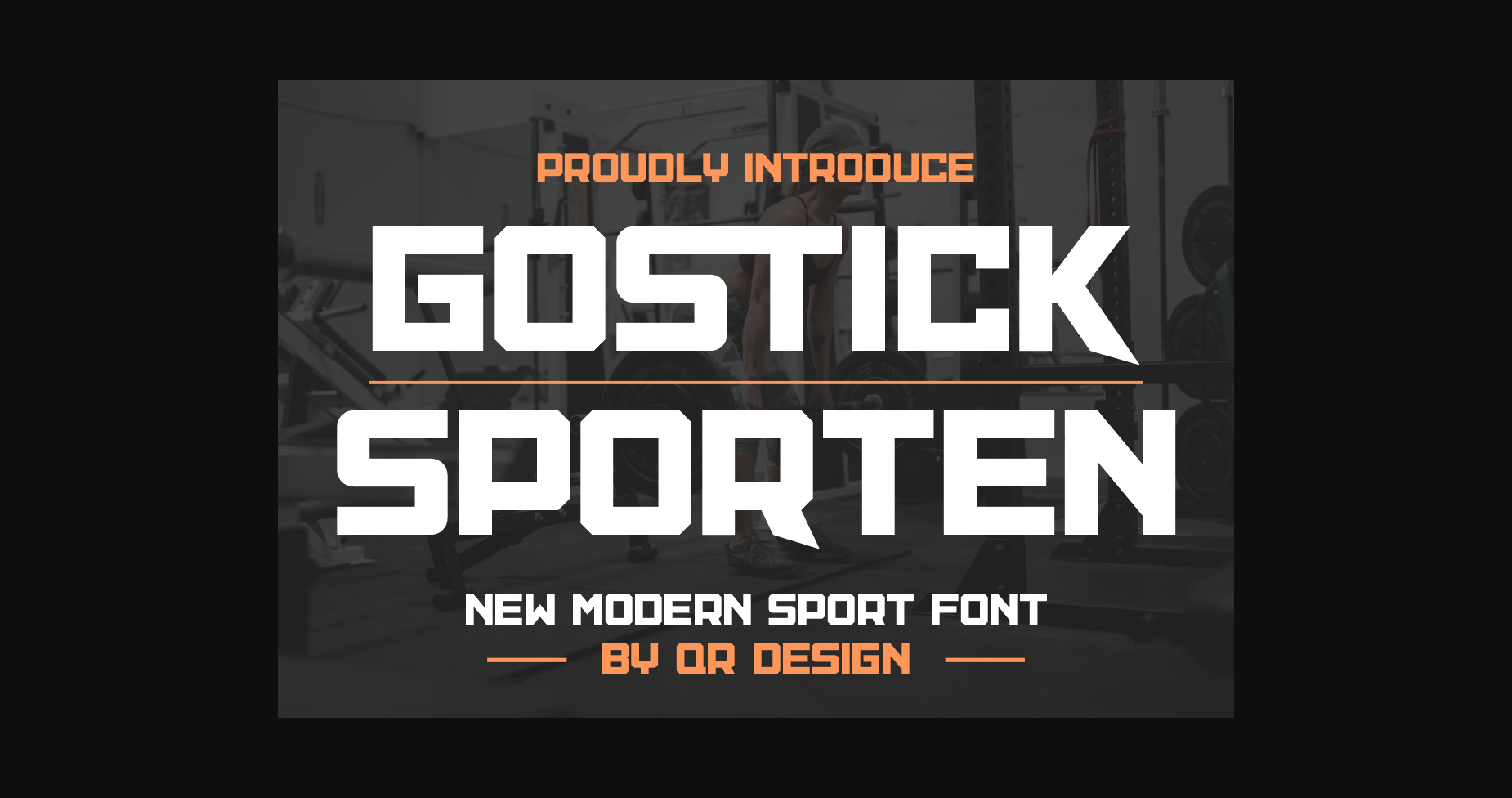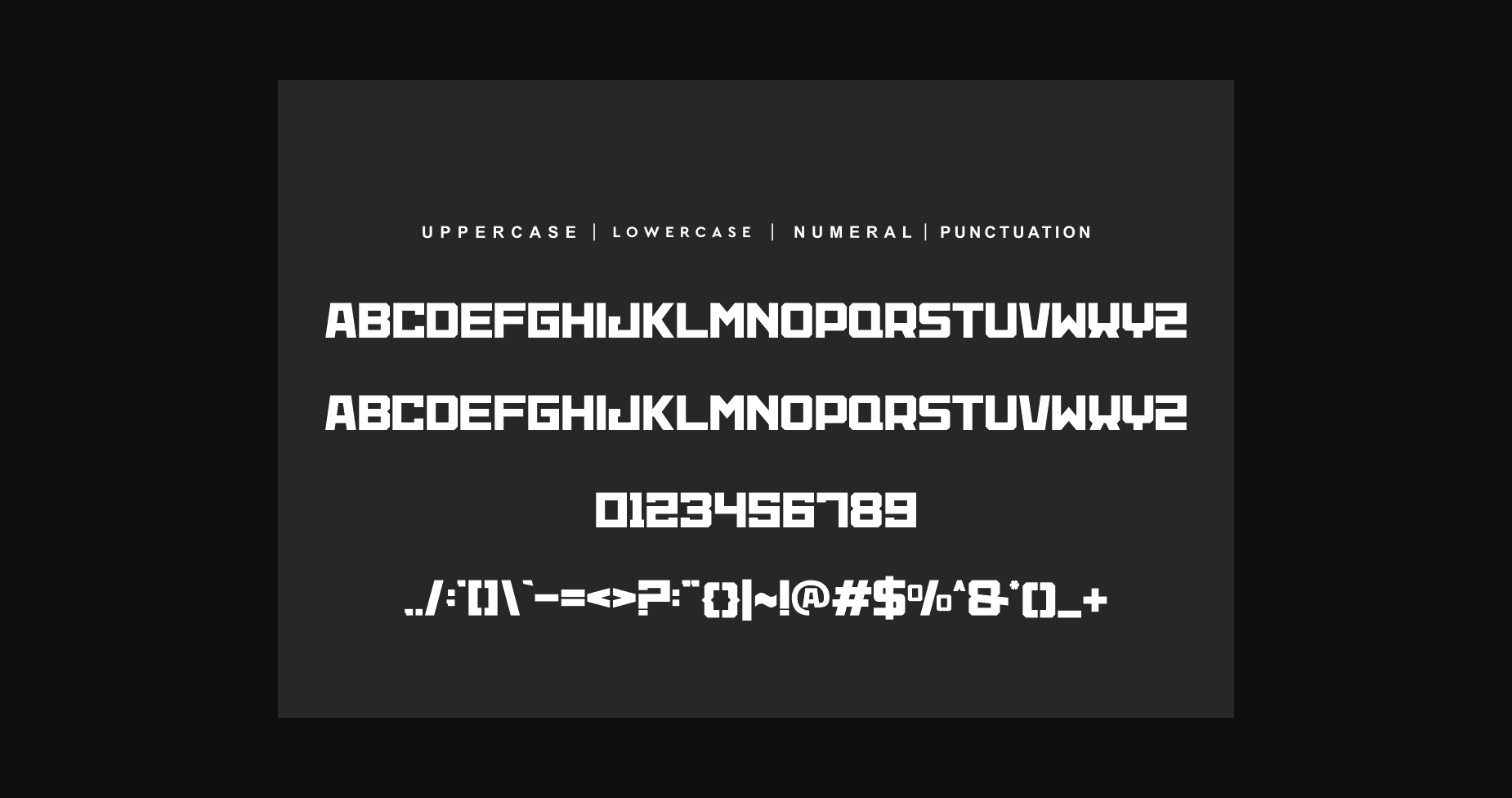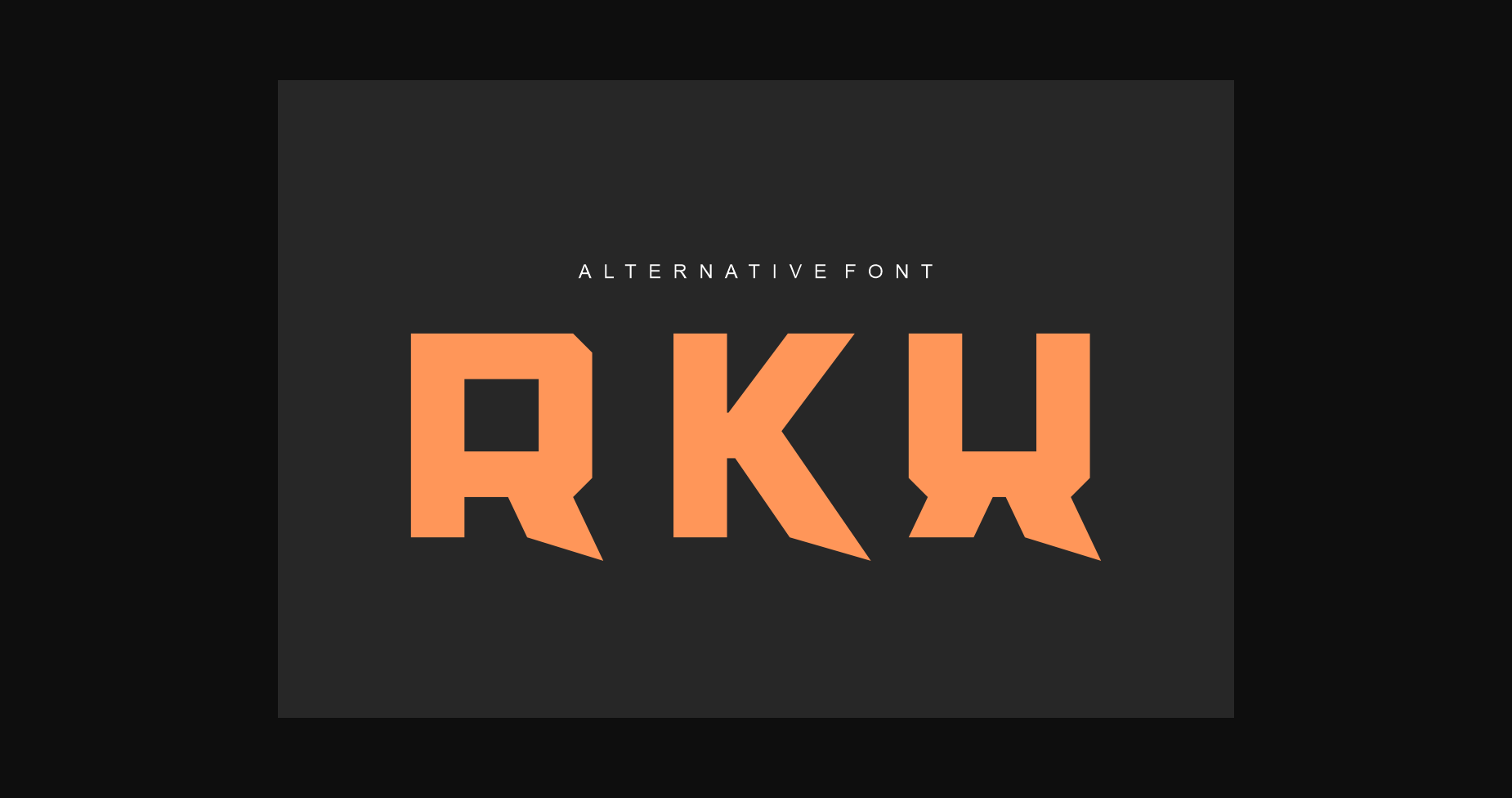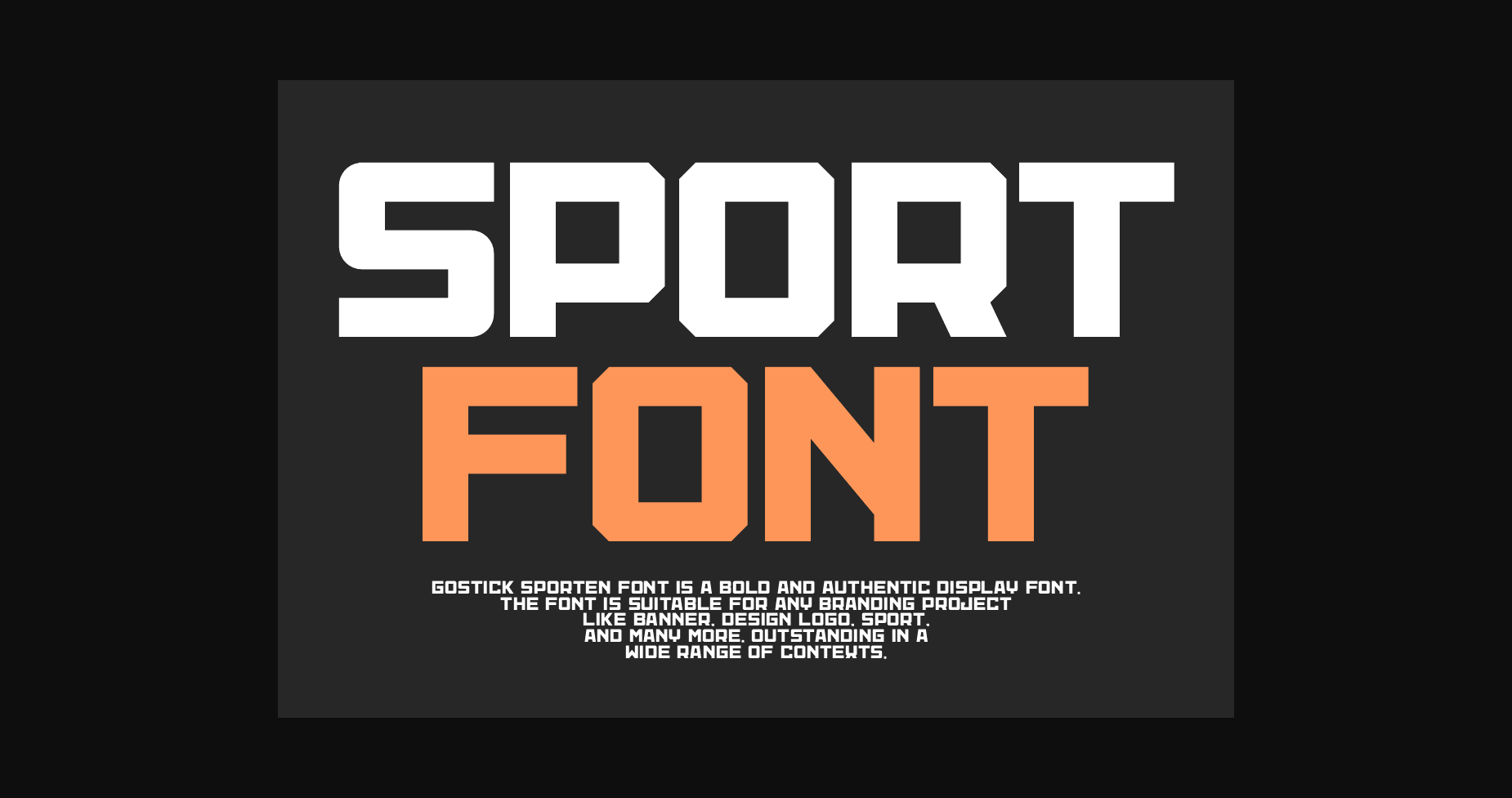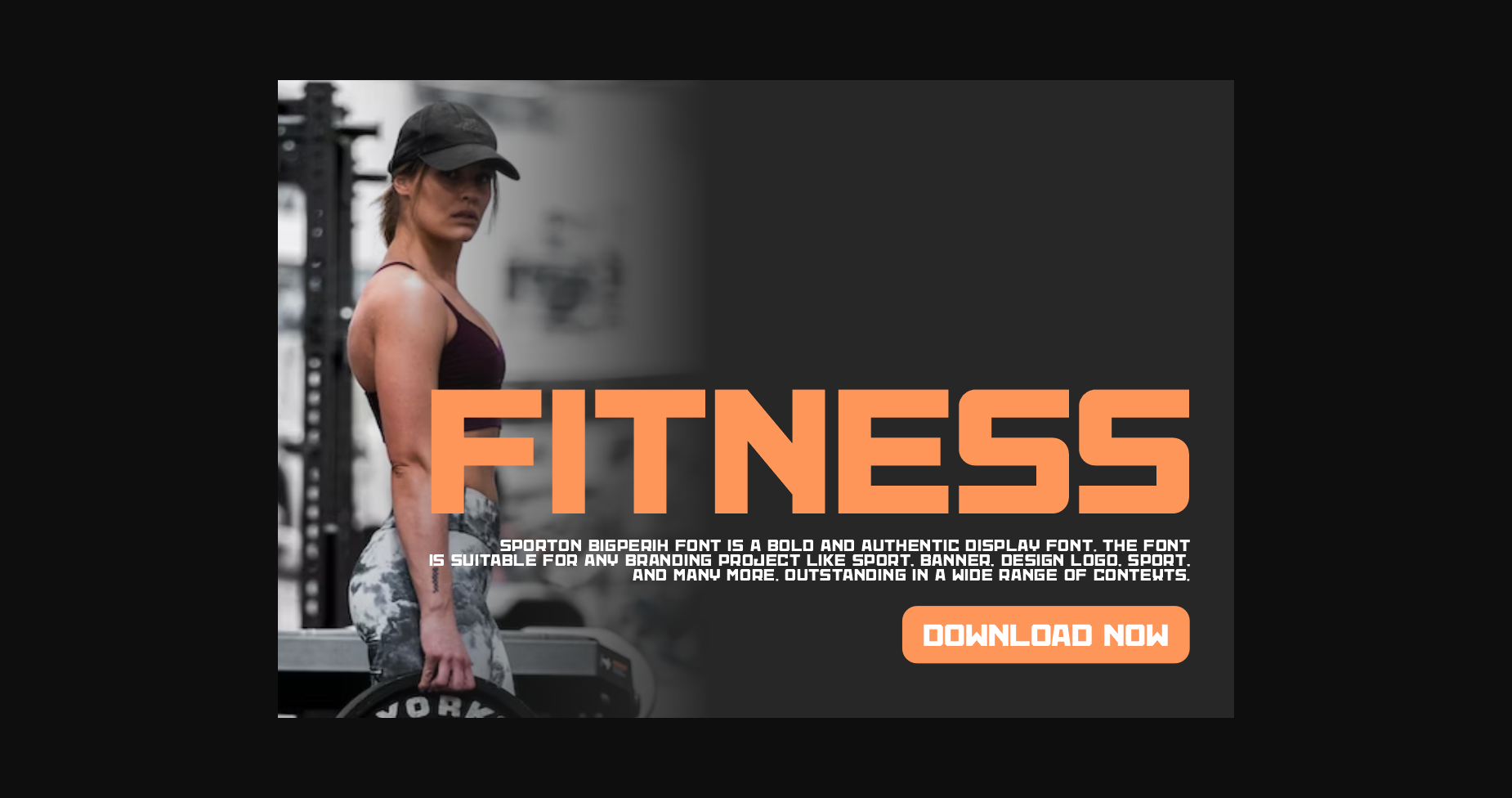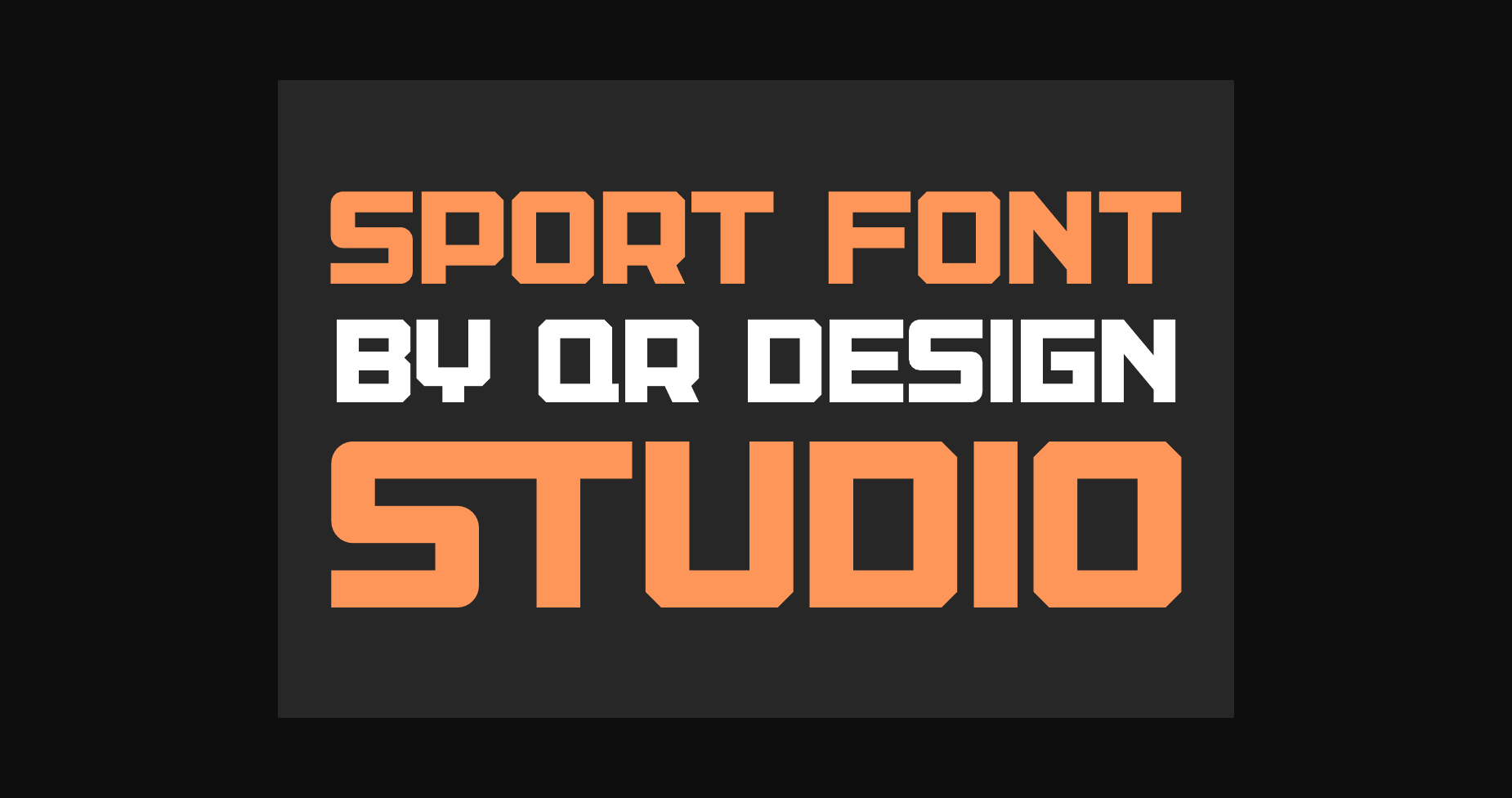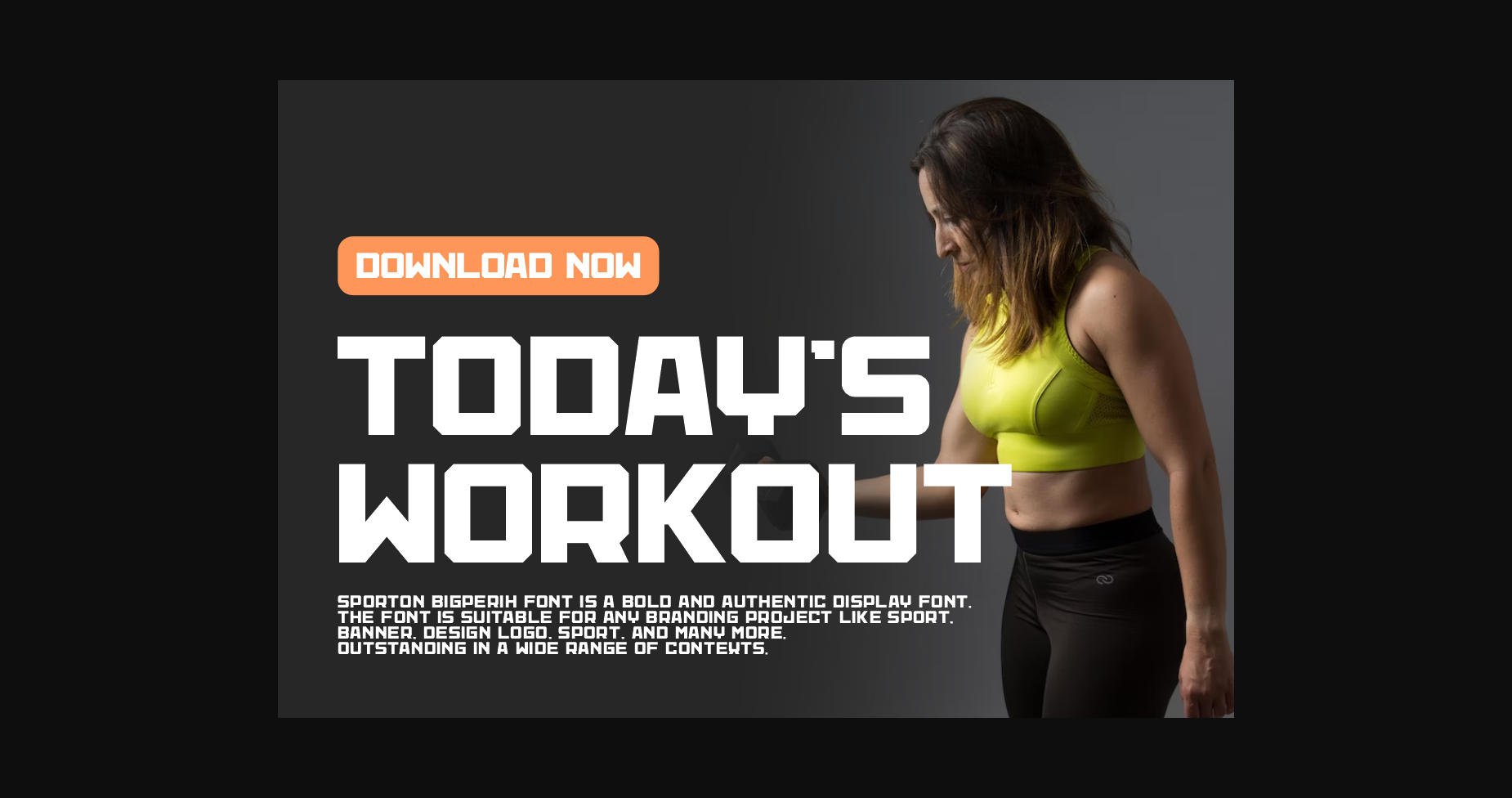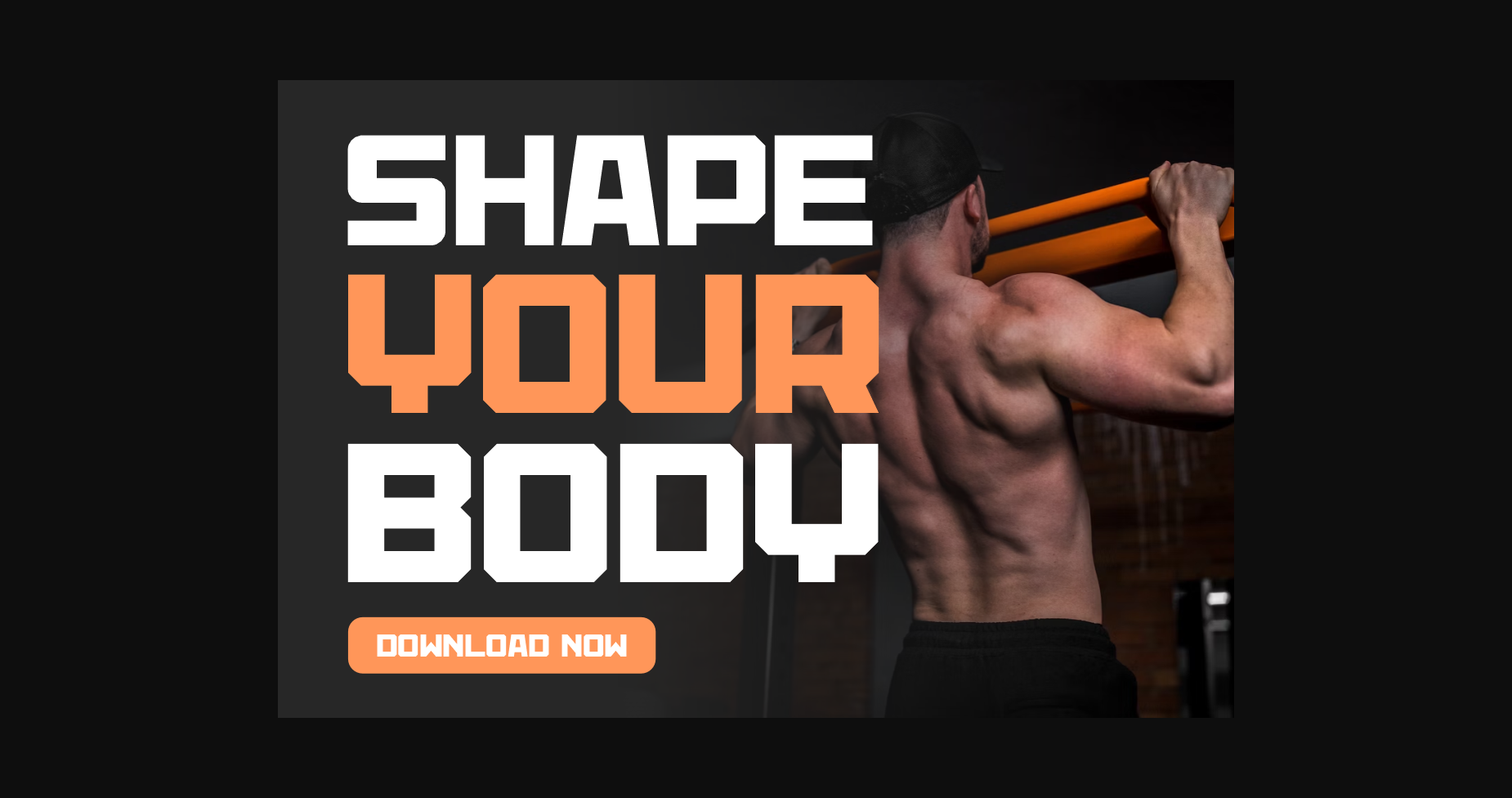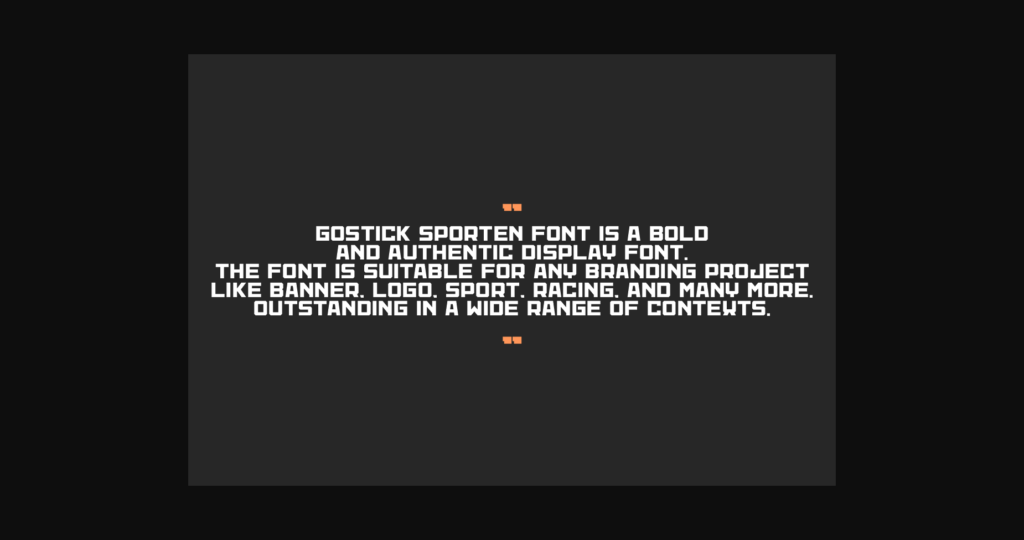
HomeSans Serif FontsGostick Sporten Font Sans Serif Fonts Gostick Sporten Font FacebookXPinterestWhatsApp 1 of 11 ... Gostick Sporten Font Poster 2... Gostick Sporten Font Poster 3... Gostick Sporten Font Poster 4... Gostick Sporten Font Poster 5... Gostick Sporten Font Poster 6... Gostick Sporten Font Poster 7... Gostick Sporten Font Poster 8... Gostick Sporten Font Poster 9... Gostick Sporten Font Poster 10... Gostick Sporten Font Poster 11... About Gostick Sporten Font Gostick Sporten is a bold, strong, and masculine sans serif font. Add it to your creative projects and you will be amazed by the generated outcome! DOWNLOAD NOW People also explored Breezy Picnic Font Paper Hearts Font Blowfisher Signature Font Sunday Holiday Font Genius Font Sunday Funday Font Lord Mayor Ego Deglas Font 461 0 TagsGostick Sporten Font Previous articleTrueway FontNext articleLoving Beach Font LEAVE A REPLY Cancel reply Comment: Please enter your comment! Name:* Please enter your name here Email:* You have entered an incorrect email address! Please enter your email address here Website: Save my name, email, and website in this browser for the next time I comment. Personal Use Free Harmony Personal Use Free Read more about this font Bamboomoe Personal Use Free Read more about this font Hello Ketta Personal Use Free Read more about this font Saolice Personal Use Free Read more about this font BLOG Free vs Paid Fonts: Why Investing in Premium Fonts Is Worth It Free vs Paid Fonts: Why Premium Fonts Are Worth It in 2025 The debate of free vs paid fonts continues in the design world. While... How to Cut Any Font on Cricut: Convert a Font to SVG (Free) Top 10 Handwritten Fonts That Elevate Your Designs Best Fonts for YouTube Videos: Make Your Thumbnails Stand Out